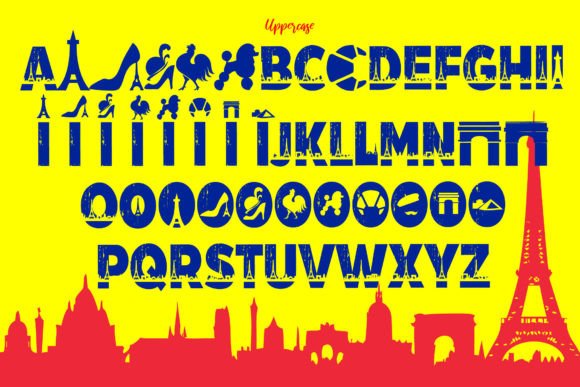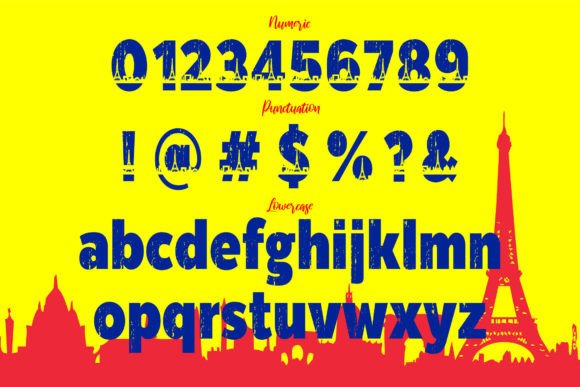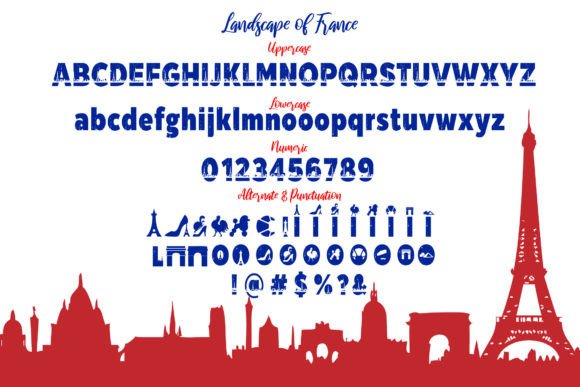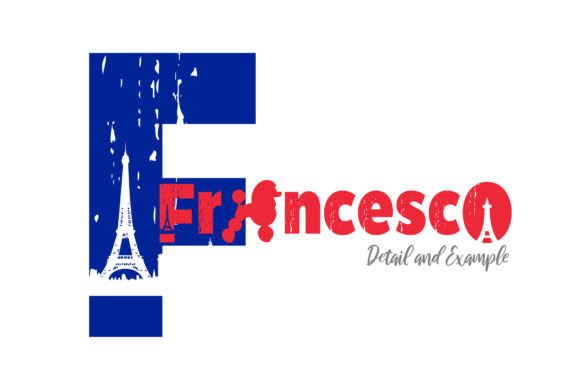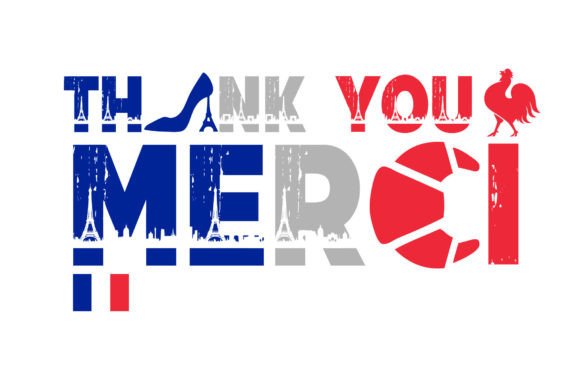
Introduction to Landscape of France Font Font
Fonts play a crucial role in design, and the Landscape of France Font font is a typeface that brings both character and versatility to any project. Whether you’re working on a branding project, a website, or a print design, the Landscape of France Font font offers a unique style that can elevate your work.
Landscape of France is a bold and incredibly cool decorative font.
Whether youβre using it for a logo, or website, or creating something totally unique, this versatile typeface will give your project just the right amount of style Have fun with this beautiful font and explore its endless variations.
Key Features of Landscape of France Font Font
Why Choose Landscape of France Font Font?
The Landscape of France Font font is more than just a typeface β it’s a design tool that helps you communicate your message with style and clarity. Its unique character set and versatile design make it suitable for a wide range of applications, from elegant invitations to bold headlines.
With its carefully crafted letterforms and balanced proportions, the Landscape of France Font font ensures readability and visual appeal across all mediums.
What makes Landscape of France Font font special?
The Landscape of France Font font stands out with its unique design, exceptional readability, and versatility across various design applications.